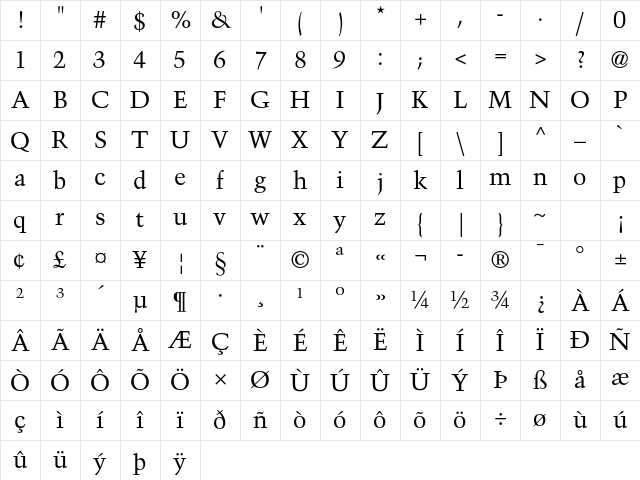
Complete Trump Mediaeval LT Std Roman glyph index. Displaying only characters natively supported by Trump Mediaeval LT Std Roman font.
Trump Mediaeval LT Std is a composed and adaptable typeface that performs quietly and consistently across a wide range of design contexts. Its slender proportions lend an understated elegance to any composition.